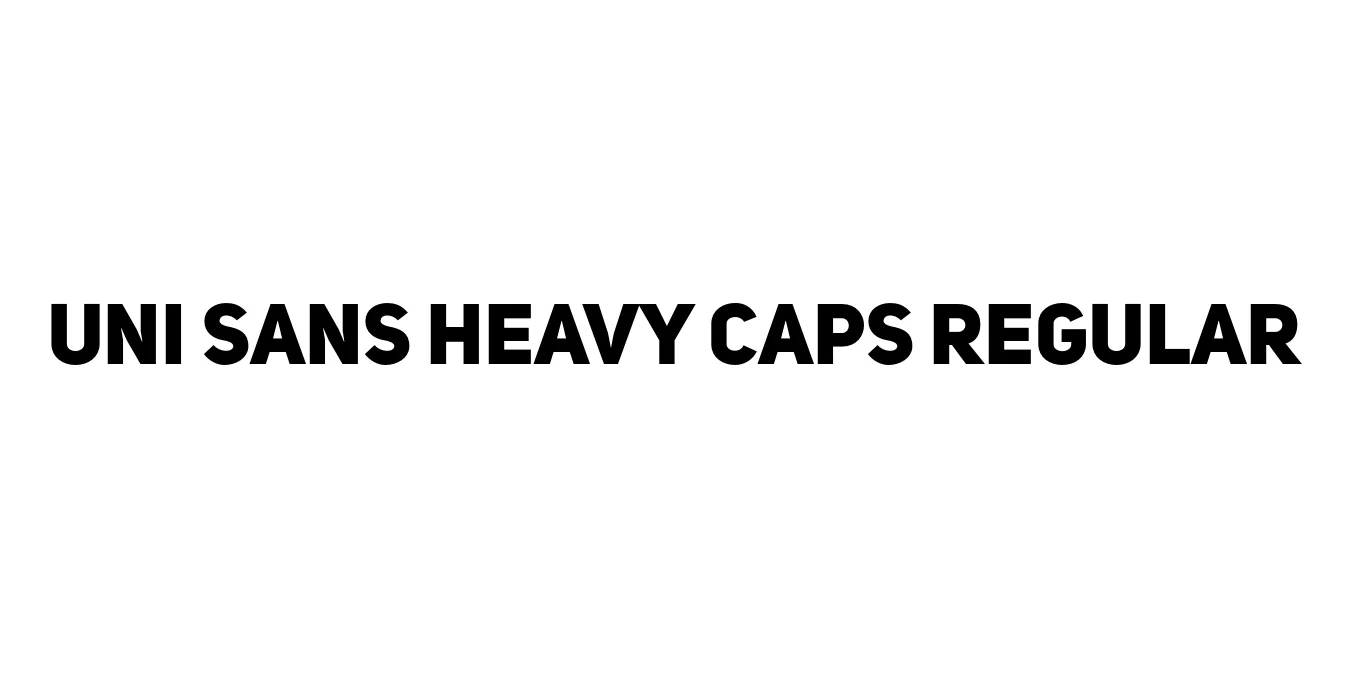
Uni Sans Heavy CAPS Regular
Designed by Svetoslav Simov
Uni Sans Heavy CAPS Regular is a powerhouse member of the expansive Uni Sans family, crafted by Svetoslav Simov at the renowned Fontfabric type foundry. This typeface is defined by its robust, geometric construction and precise terminal cuts, which lend it a distinctively modern and professional appearance. As an all-caps font, it emphasizes clarity and weight, making it an essential tool for designers looking to convey strength and stability in their visual projects.
The history of the Uni Sans family is rooted in the pursuit of high legibility and versatile application. Drawing inspiration from classic grotesque styles while integrating contemporary design principles, the Heavy CAPS variant excels in high-impact environments. Its balanced proportions and clean lines ensure that it remains readable even at large scales, securing its place as a go-to choice for corporate branding, editorial headlines, and sophisticated motion graphics.
Uni Sans Heavy CAPS Regular Best Uses
Commanding attention in magazine covers and digital hero sections.
Creating impactful and memorable brand identities.
Delivering clear and powerful messaging in large-format printing.
Designing bold, shareable quote cards and promotional banners.
Utilizing high visibility for physical wayfinding and architectural labels.